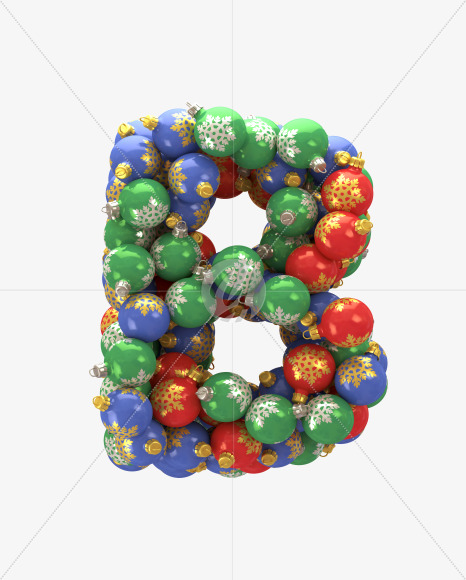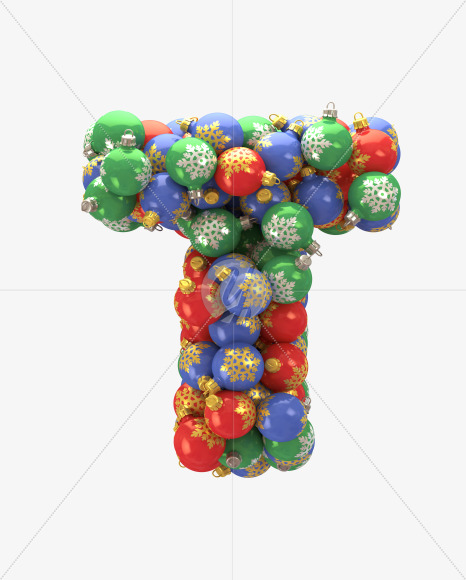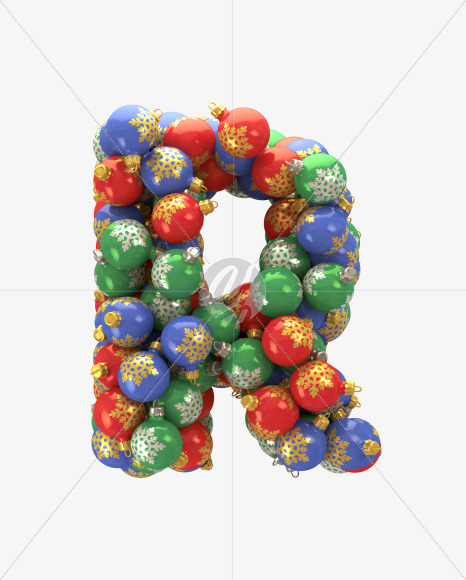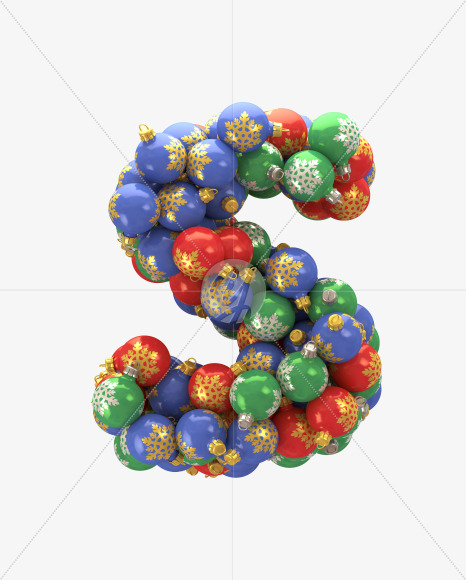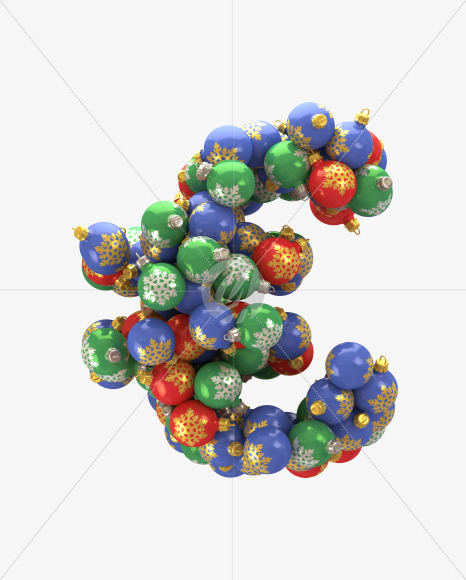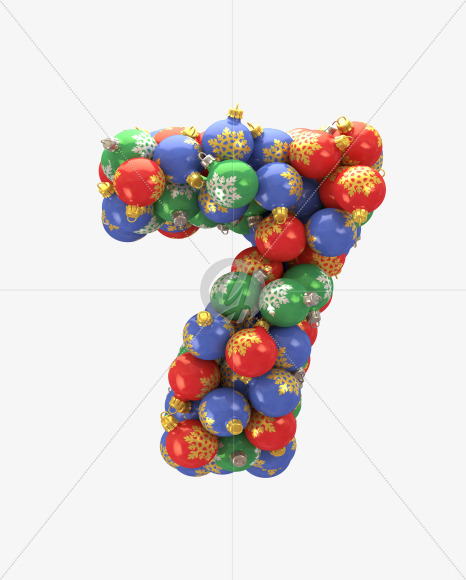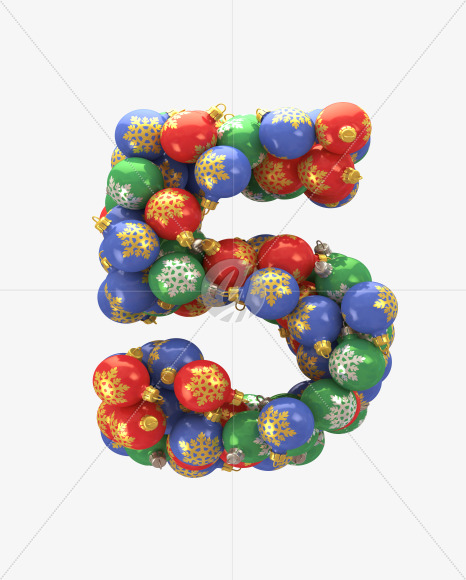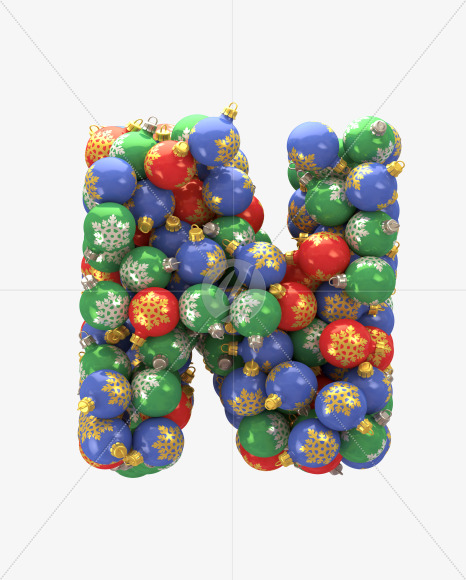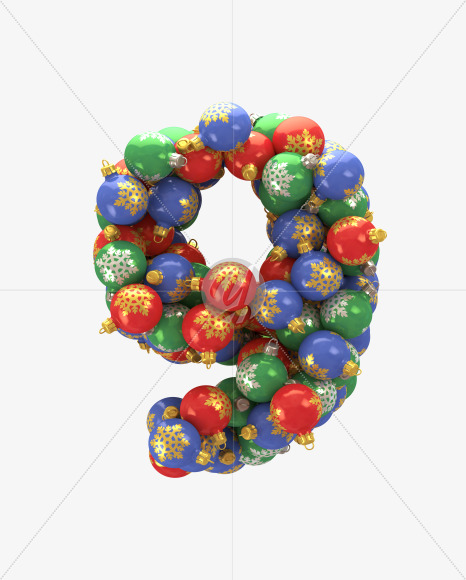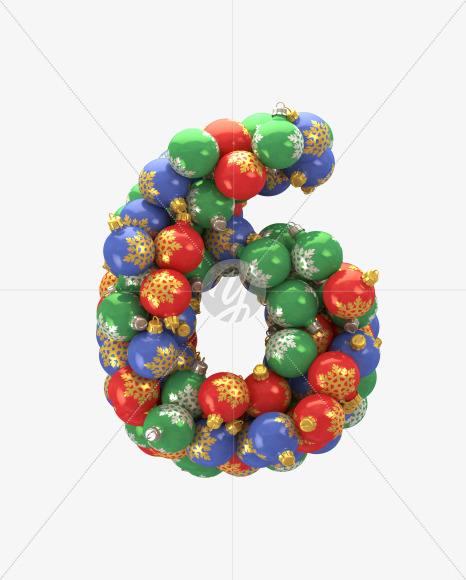
Christmas Toy Font is the best decoration for Christmas and New Year designs. The winter typeface is a cute and colorful alphabet consisting of many little balls. Their traditional appearance will suit any idea, from a classical one to a modern concept; therefore you don’t have to worry about the fitness of the balls typeface. Christmas Toy Font will hit into a holiday pack without any difficulty.